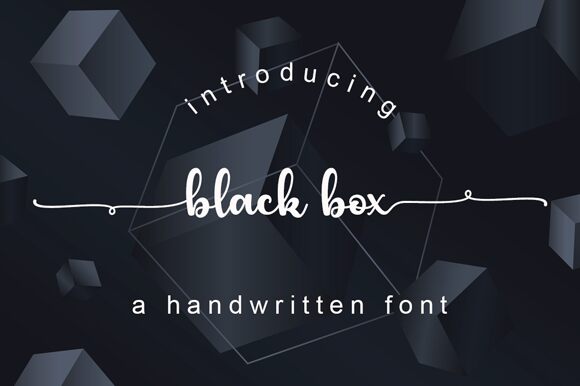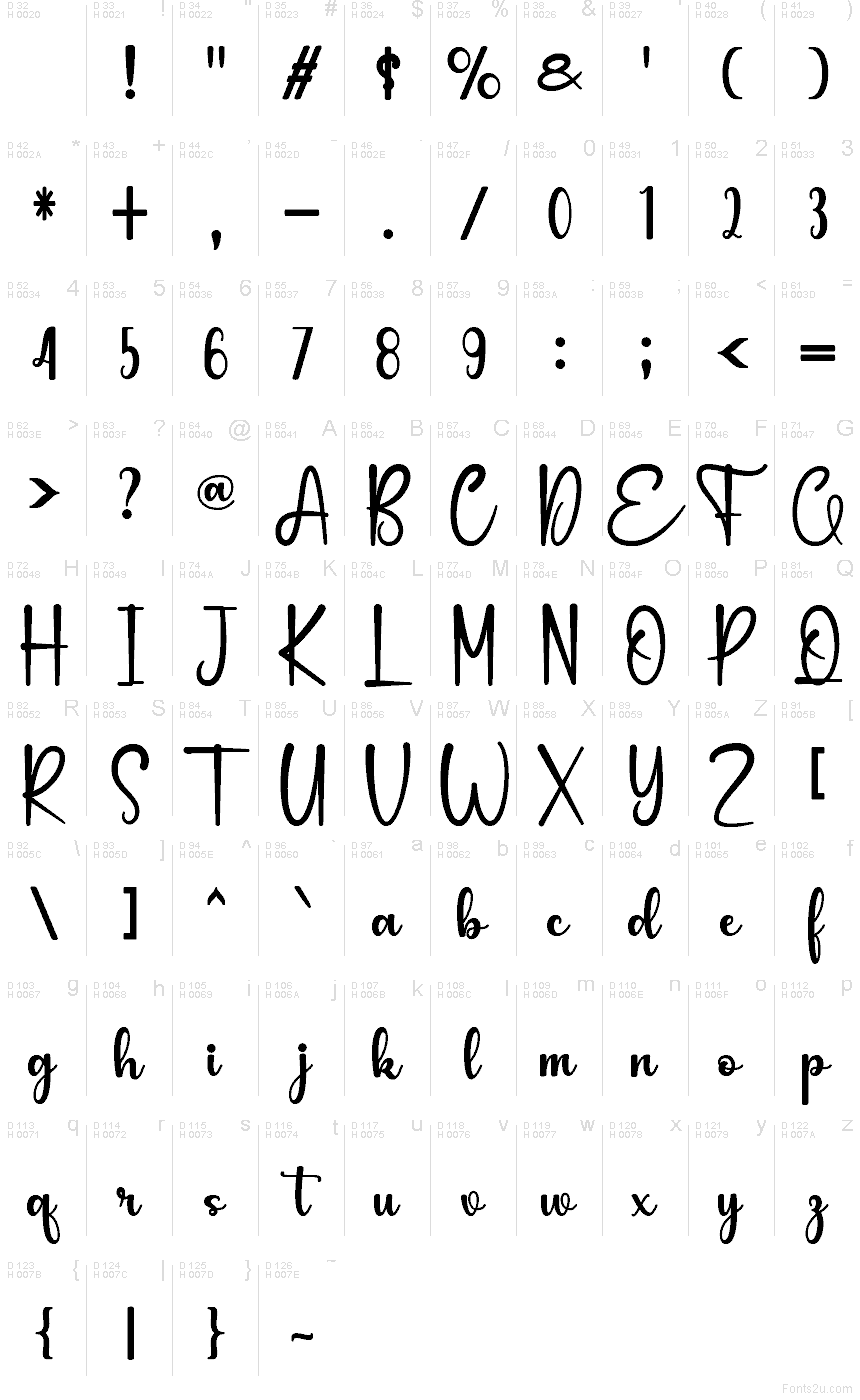
Black Box
Black Box font by Cavalera Creative is a free handwritten font that feels like a bold signature brushed straight onto the page. Thick, inky strokes and generous loops give it a friendly, hand-lettered storefront vibe, while the rounded shapes keep it soft rather than shouty. It has that “crafted by hand” smoothness that works whether you’re aiming for cozy, playful, or modern-feminine branding.
Using Black Box, you can give logos, product packaging, social media quotes, greeting cards, wedding materials, labels, and blog graphics an instant handcrafted polish without looking messy. This free font holds up beautifully at larger sizes, where its curves and swashes really breathe. For balance, pair Black Box with a clean geometric sans serif for body text to keep your layouts fresh and readable.